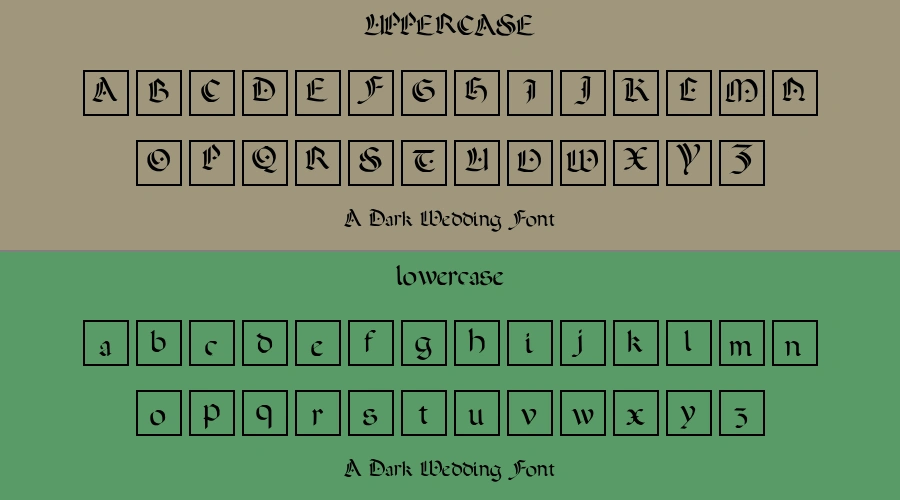
About A Dark Wedding Font
A Dark Wedding Font embodies typographic excellence through its masterful combination of geometric construction and professional finish. Created for engineering specs, this typeface delivers exceptional clarity and visual appeal across all applications. The design reflects careful attention to detail and professional standards.
Advanced capabilities include distinctive contextual forms and versatile oldstyle figures, giving designers creative control. When used in literary pages, A Dark Wedding Font exhibits remarkable archive stability. The harmonious balance between x-height proportion and institutional trust sets this typeface apart.